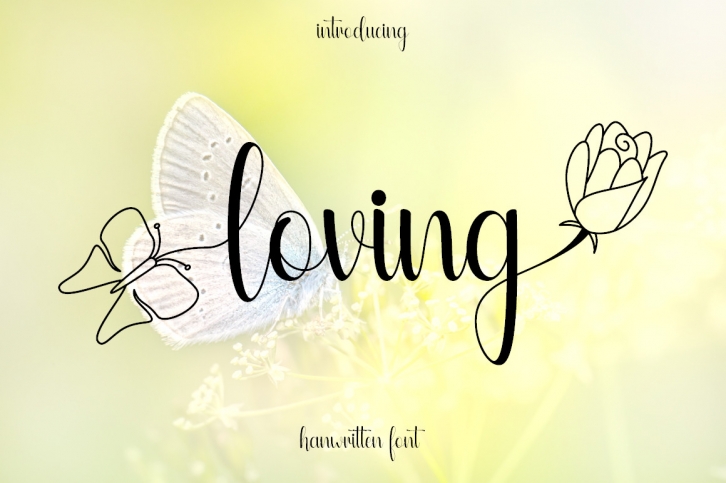
loving is a romantic handwritten font. has a stylish design, with a beautiful alternative to lowercase letters, namely butterfly flowers. Perfect for your favorite projects. Fall in love with its incredibly distinct and timeless style, and use it to create spectacular designs.